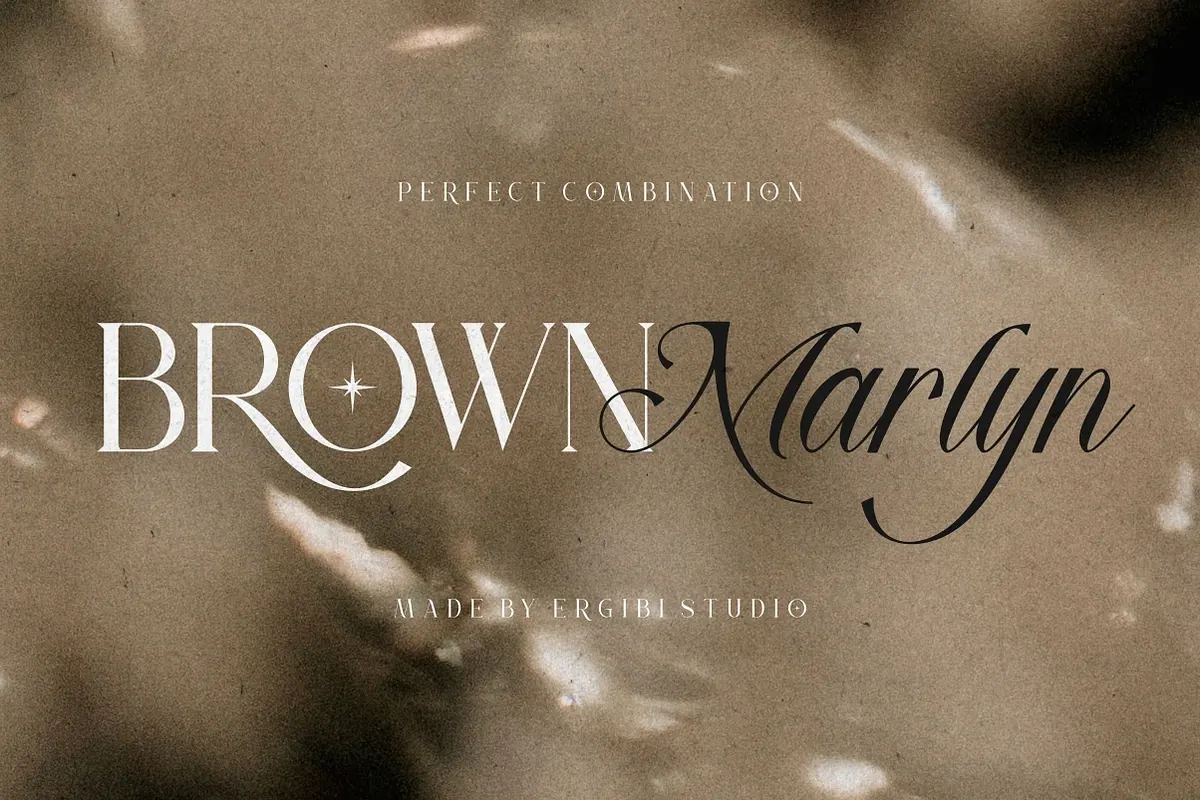
Please note that you must purchase this font duo for commercial use. You can download Brown Marlyn – Font Duo for free, strictly for personal testing purposes only. Brown Marlyn is an elegant and versatile font duo that combines a modern serif font with a stylish, handwritten script. Brown Marlyn Font Duo Free Download is perfect for a wide variety of creative projects, including branding, logos, invitations, social media posts, and more.
The serif font brings a structured, refined look, while the script font adds a personal, flowing touch. Together, these fonts work seamlessly to create dynamic and stylish designs. The duo includes uppercase and lowercase letters, numerals, punctuation, and multilingual support, offering flexibility for various design applications.
Whether you’re designing a modern brand identity, crafting a custom invitation, or creating elegant social media content, Brown Marlyn adds a sophisticated yet personal touch to your typography.